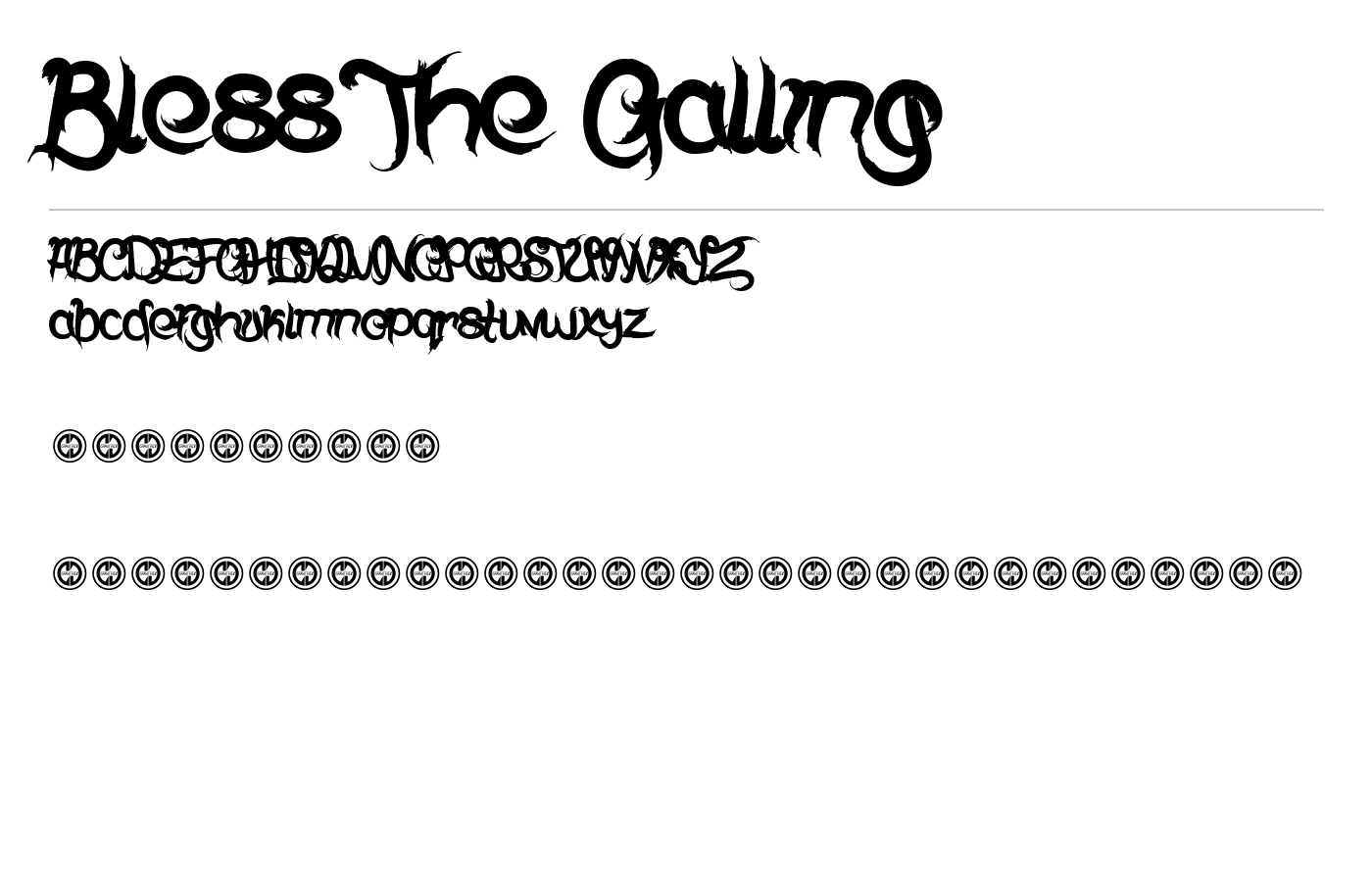
Bless The Galling is a bold, decorative script font with a rough, edgy style that gives it a slightly chaotic and artistic flair. Its intricate, textured strokes and irregular shapes create a dynamic and expressive feel, making it ideal for projects that want to stand out with a unique, hand-crafted vibe. This font works best for creative branding, posters, and edgy editorial designs where personality and impact are key.
Bless The Galling Font
About Bless The Galling Font
| Font family | Bless The Galling Font |
| Designer | Chris Vile |